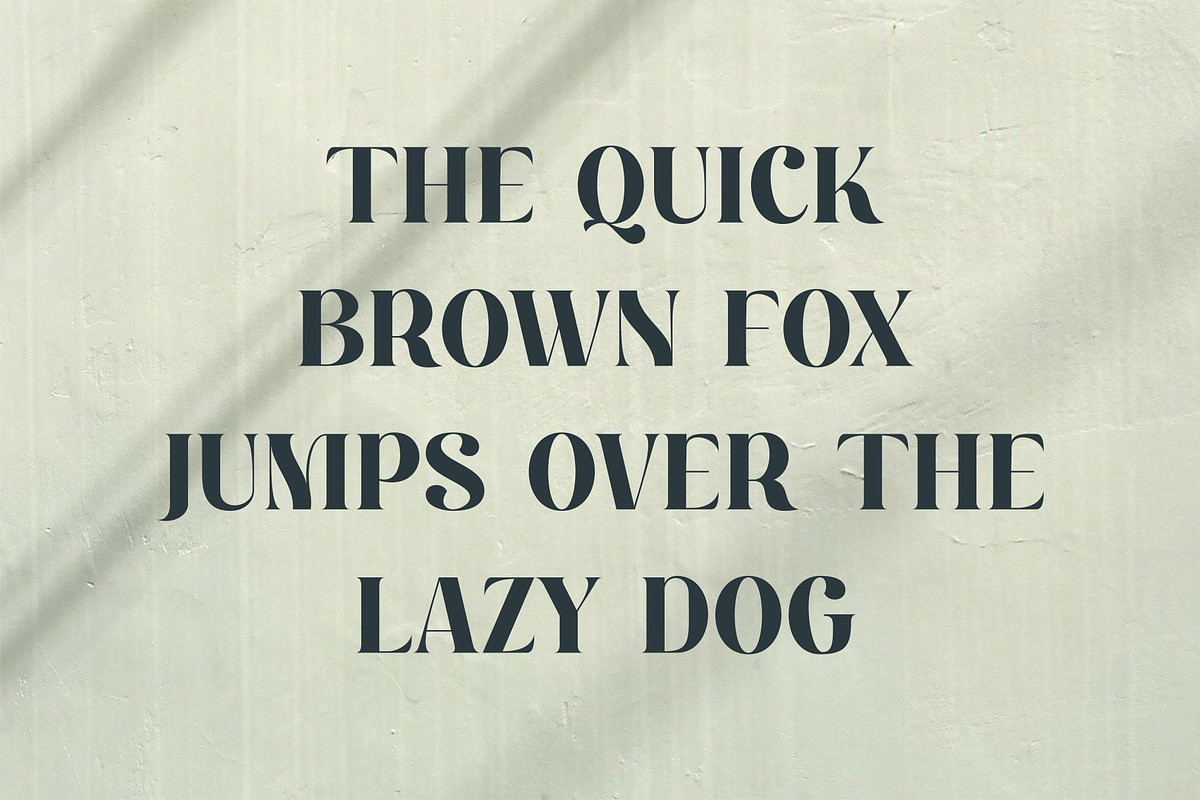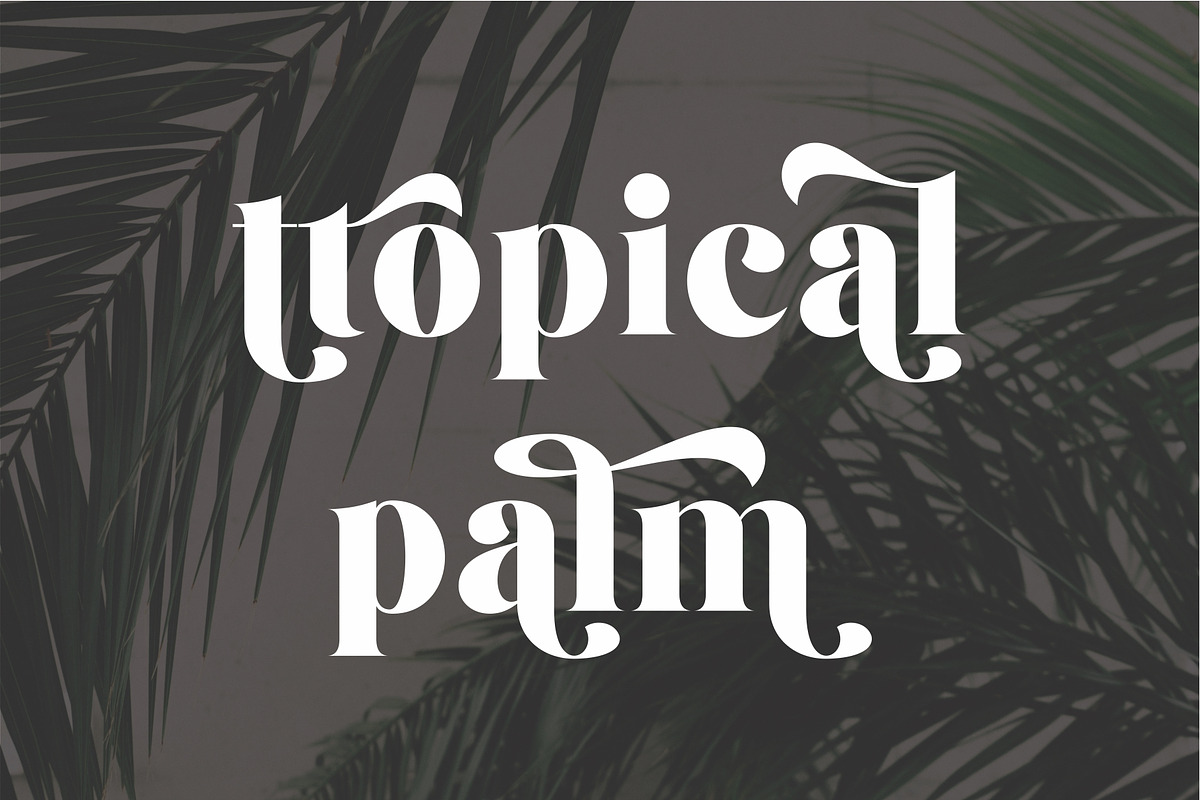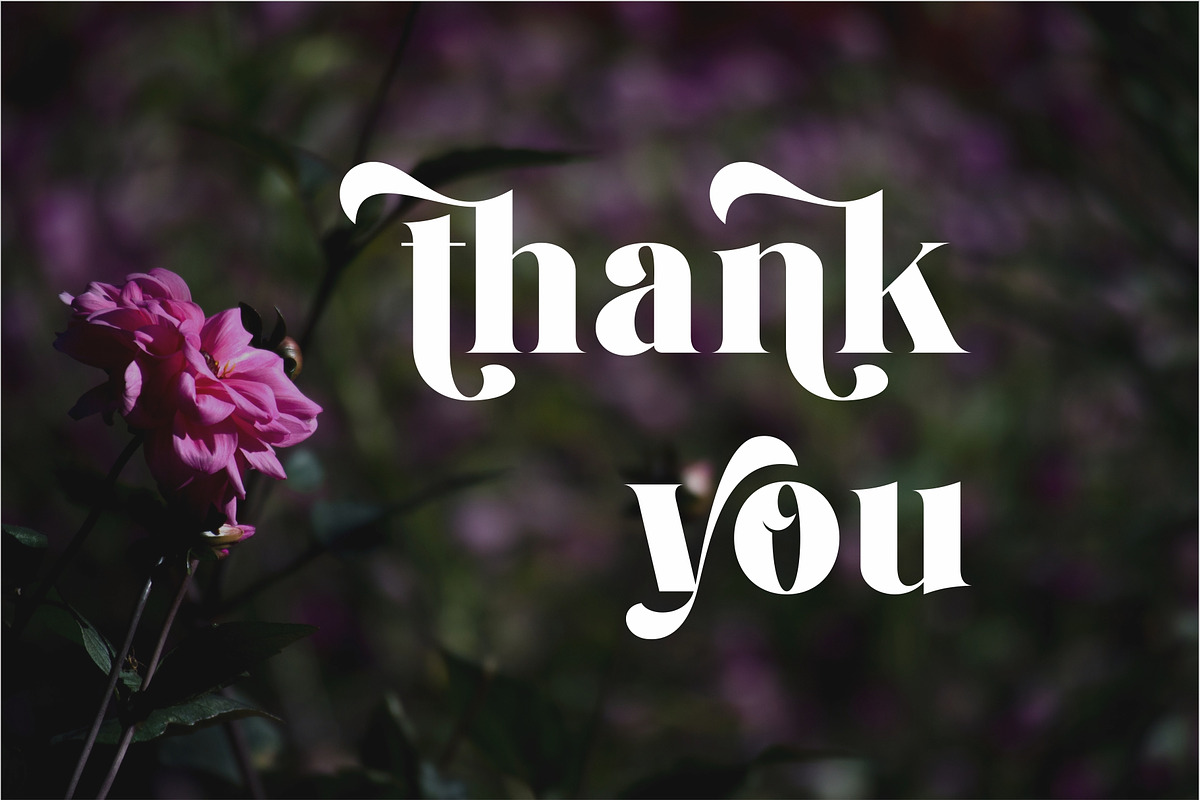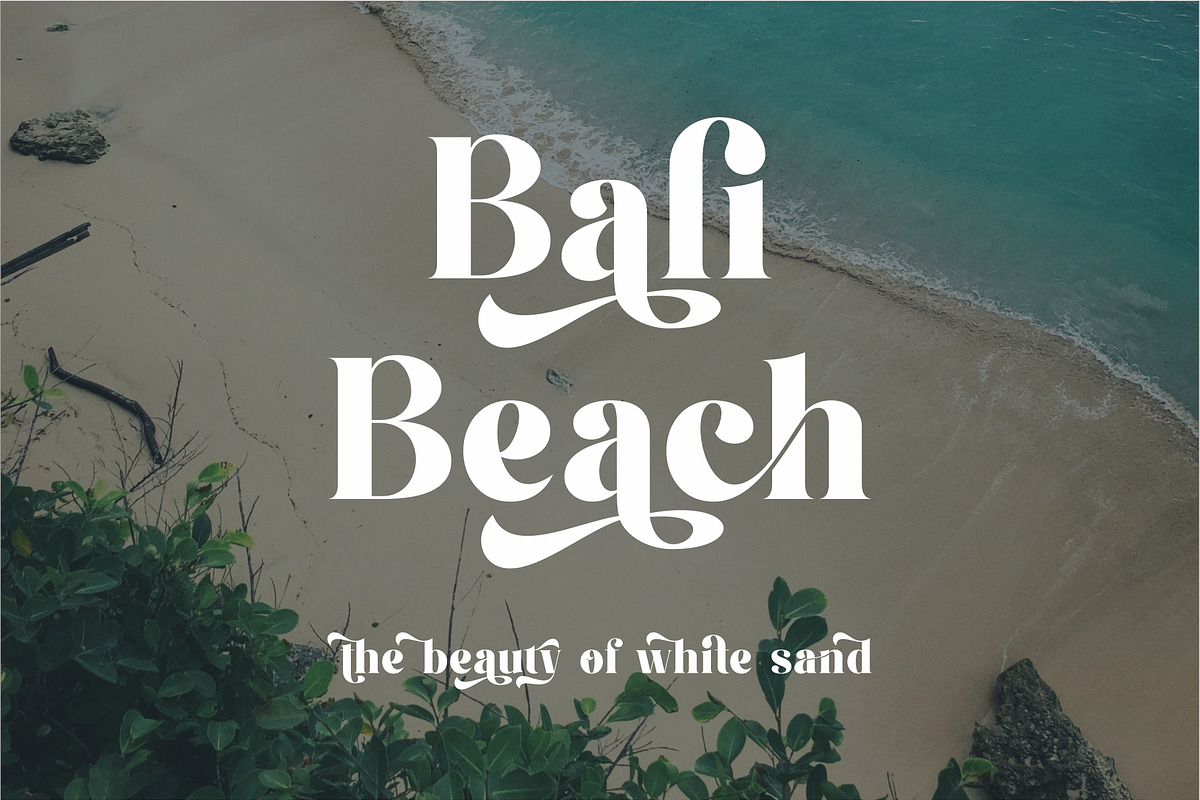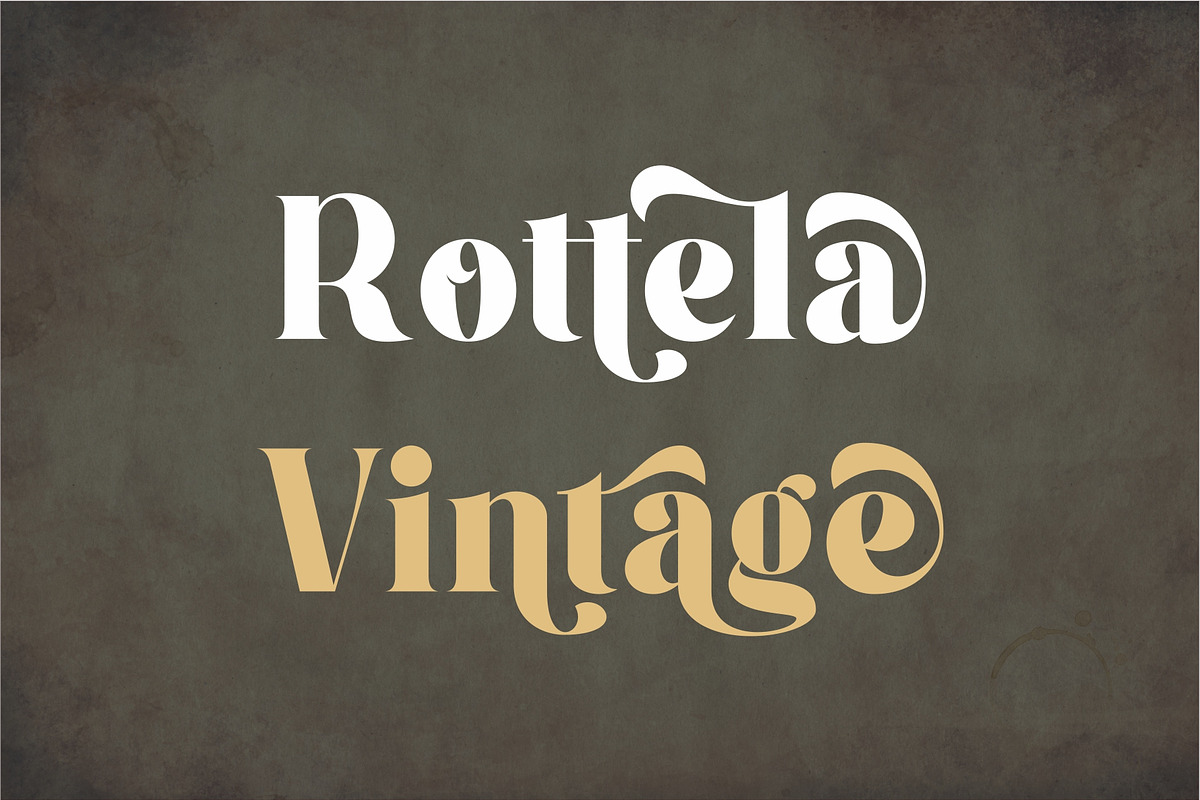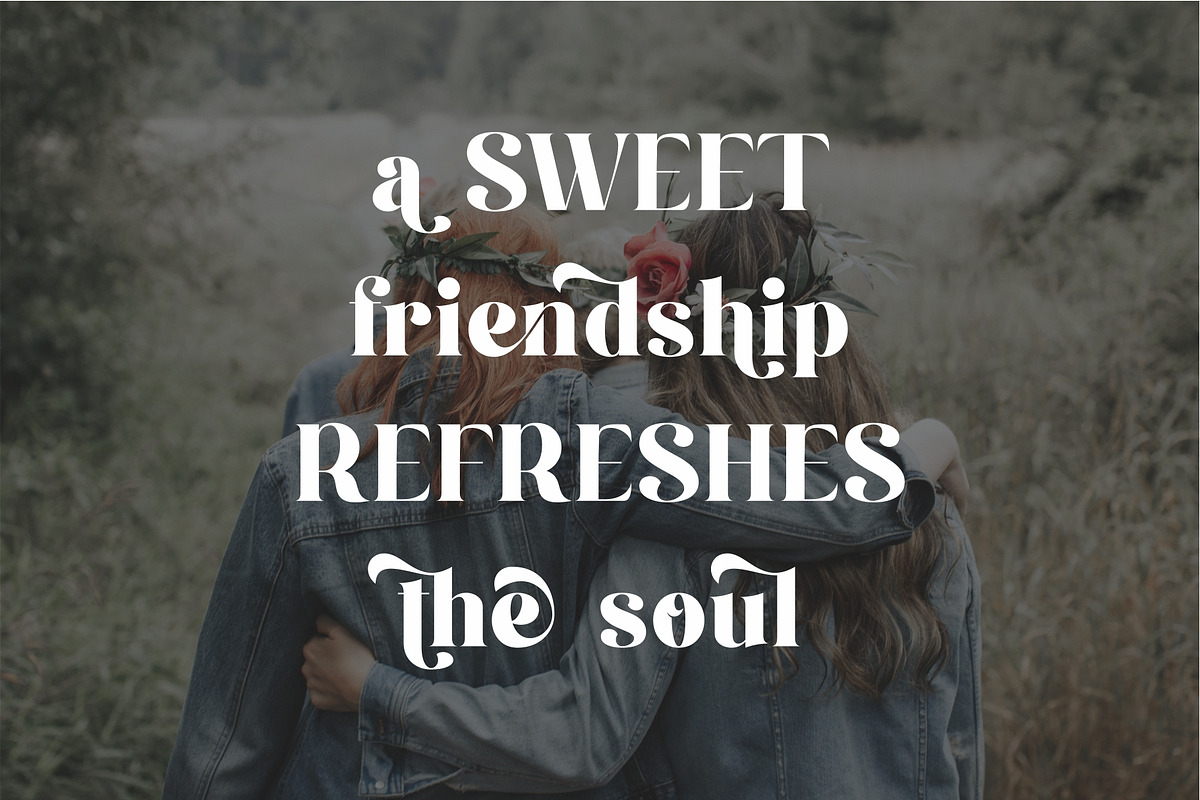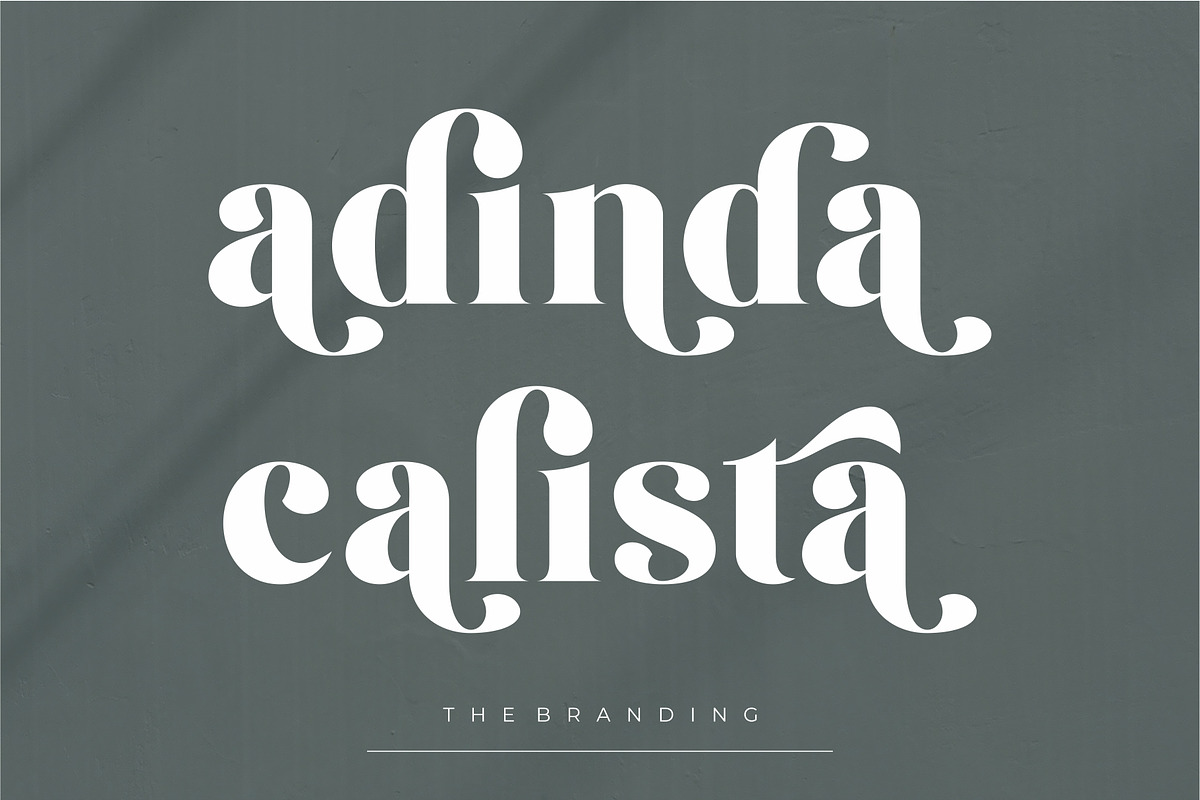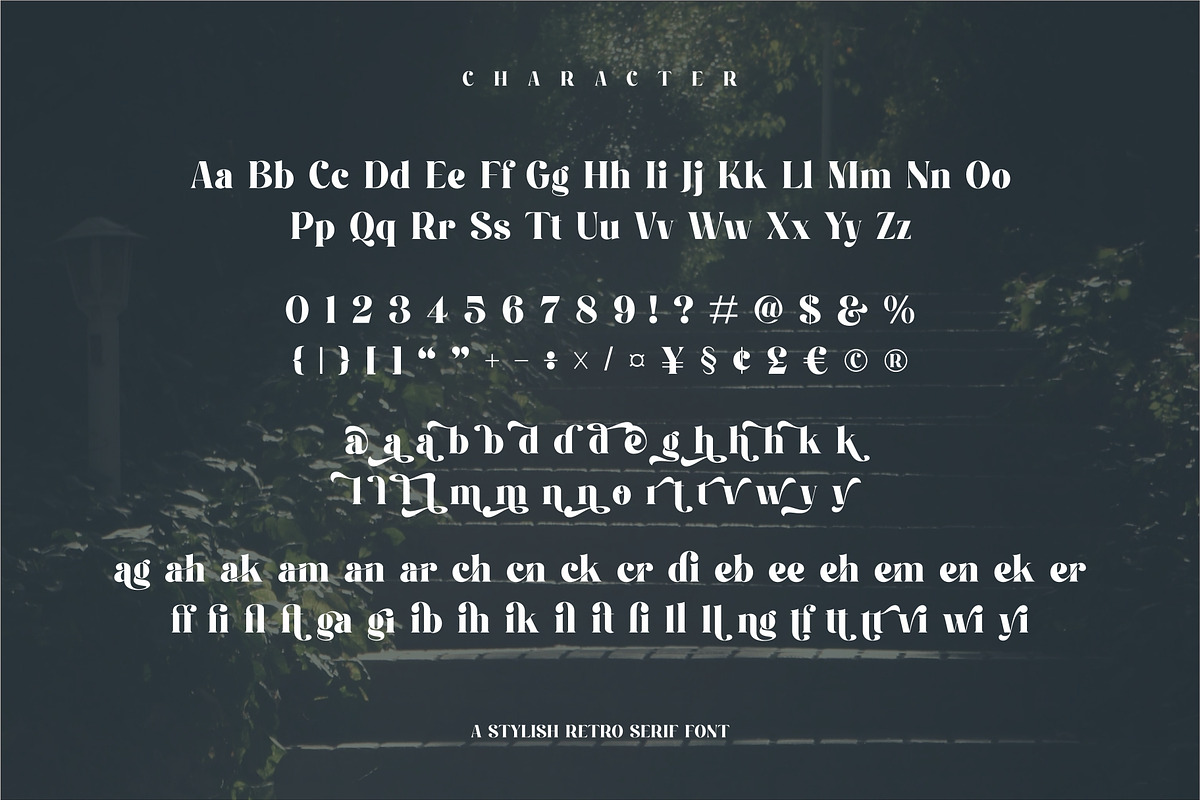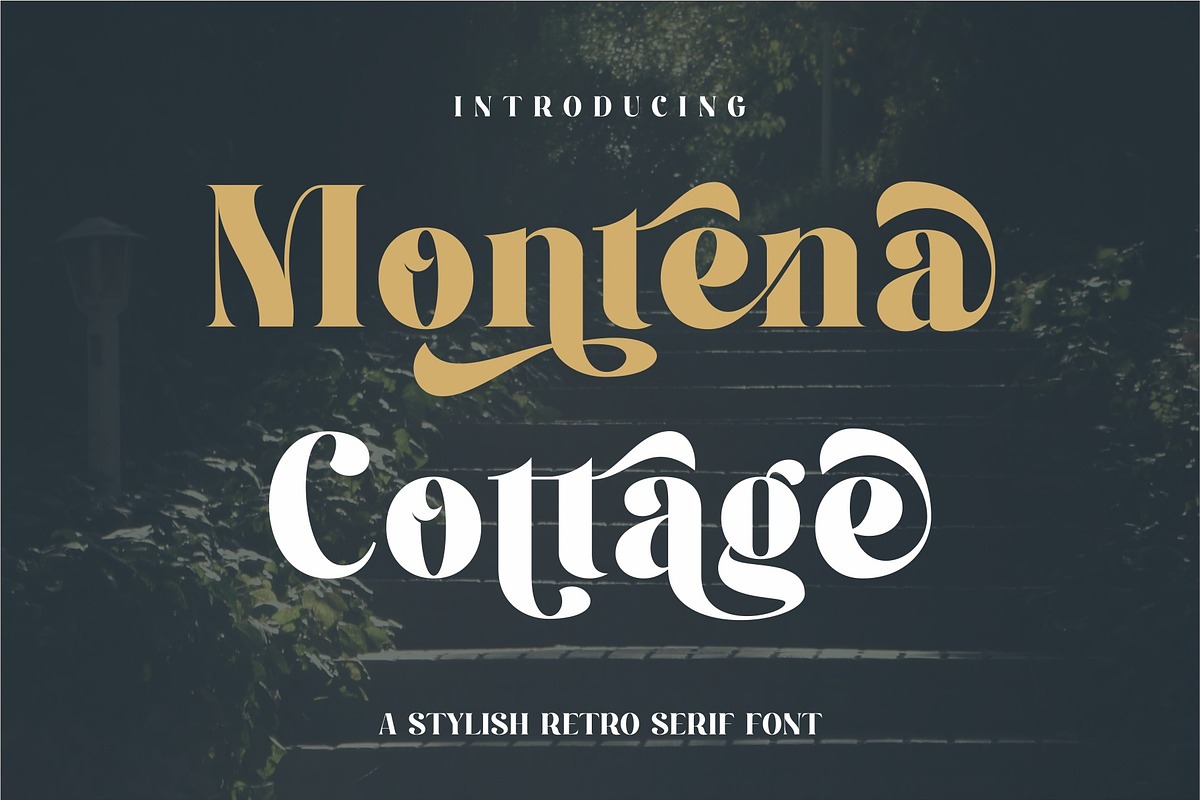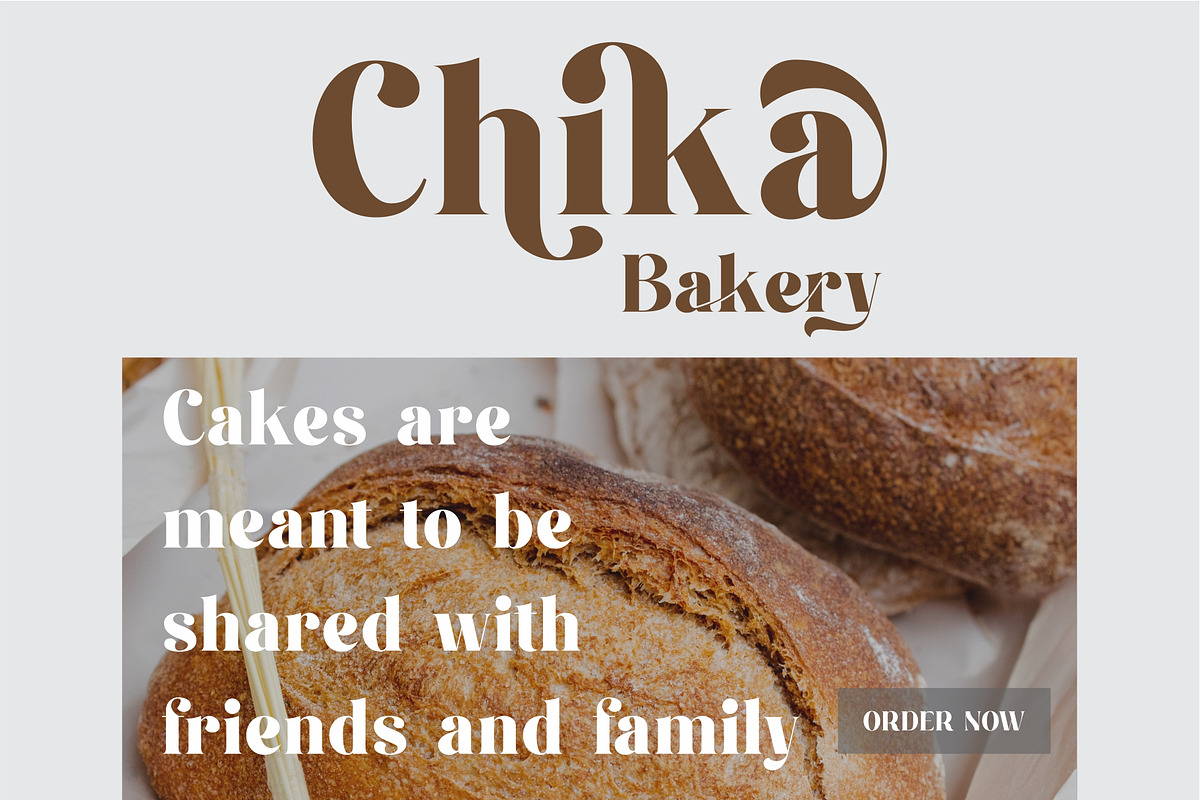
Montena Cottage Stylish Retro Serif
Montena Cottage is a stylish retro serif font that blends timeless elegance with vintage charm. Designed with bold curves, unique letterforms, and sophisticated details, this typeface brings a touch of nostalgia while staying fresh and modern. Perfect for branding, packaging, posters, logos, and editorial designs, Montena Cottage captures the essence of classic retro typography with a contemporary twist. Its versatile style makes it ideal for both standout headlines and refined text layouts, giving your design a distinctive personality and irresistible charm. Bring timeless retro vibes to your design! Montena Cottage is a bold yet elegant serif font with unique curves and vintage charm. Perfect for logos, posters, branding, and packaging, it’s the ideal choice to make your project stand out with style.